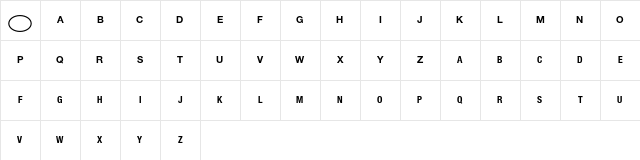
National Codes Universal Free Font
National Codes Universal
Style: Universal
National Codes Family
Design Context for National Codes
National Codes uses fixed-width spacing throughout, giving it the structured, systematic character associated with coding environments and technical documentation.
Pro Tip: Use National Codes with slightly increased line-height for extended reading - fixed-width spacing can feel dense in longer passages without extra breathing room.